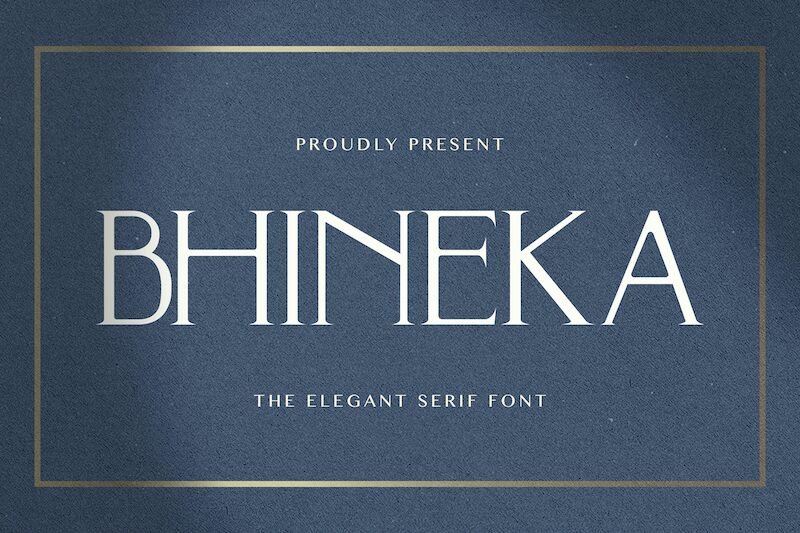
BHINEKA
Introducing BHINEKA, an elegant serif font designed by Virgiawan Listanto. This light weight font is perfect for any project needing a touch of class and sophistication. Whether you're designing a logo, creating an invitation or crafting a book cover - BHINEKA is the perfect choice!